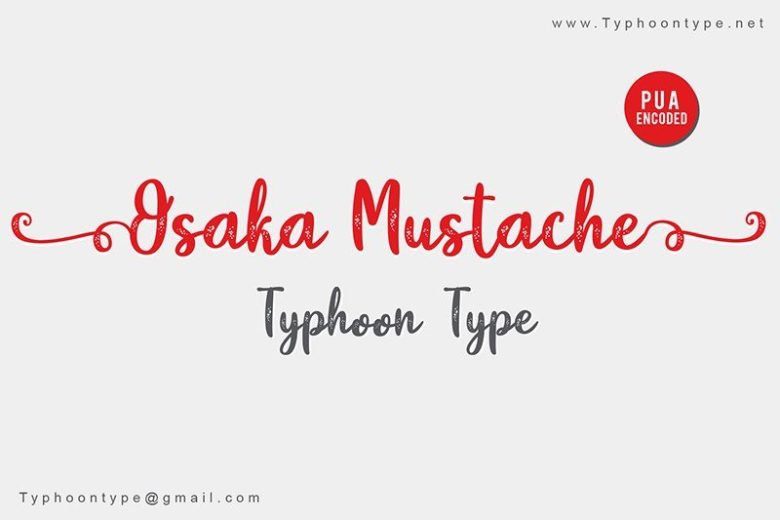
Osaka Mustache Script Font
Osaka Mustache This font perfect for logos, name tag, advertising, product packaging, clothing, social media & greeting cards.
Type ( before word to get beginning swash and Type ) after word to get the ending swash.
Example : (Osaka Mustache)